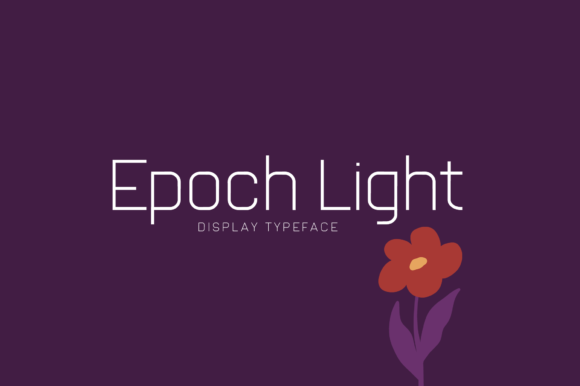
**Introducing Epoch Light Font: The Ultimate Font for Captivating Visuals**
Step into the world of Epoch Light, a captivating display font that will ignite your imagination and elevate your visual creations to new heights. This font family is carefully crafted to evoke a sense of wonder and intrigue, making it the perfect choice for headlines, text blocks, and any design where maximum impact is desired.
Whether you're a seasoned designer or just starting your creative journey, Epoch Light will empower you to express your ideas with grace and style. Its versatile nature makes it an ideal choice for both web and print, giving you the freedom to create stunning visuals that will captivate your audience.
**A Font for Every Occasion**
From majestic movie titles to eye-catching social media posts, Epoch Light shines in any context. Its unique character set features a playful blend of curves and sharp angles, creating a captivating aesthetic that draws attention and leaves a lasting impression.
But Epoch Light is more than just a pretty face. Its meticulous design ensures readability and clarity, making it perfect for blocks of text that require both visual appeal and maximum readability. Whether you're crafting a captivating website, a compelling brochure, or an unforgettable infographic, Epoch Light will elevate your words and ensure your message is conveyed with impact.
**Ignite Your Visual Potential**
With Epoch Light at your disposal, you'll never be short of inspiration again. This font is a treasure trove of creative possibilities, inviting you to explore a world of captivating designs. Its unique character set provides endless opportunities for experimentation, empowering you to create truly original and unforgettable visuals.